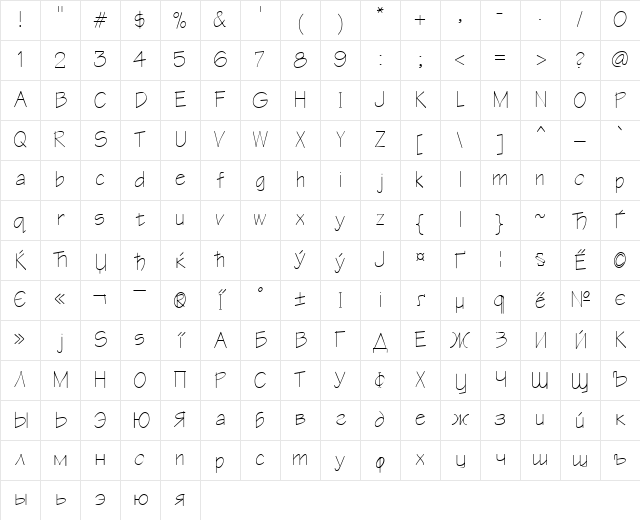
ER Architect 1251 Normal
Design Context for ER Architect 1251
ER Architect 1251 is a composed and adaptable typeface that performs quietly and consistently across a wide range of design contexts.